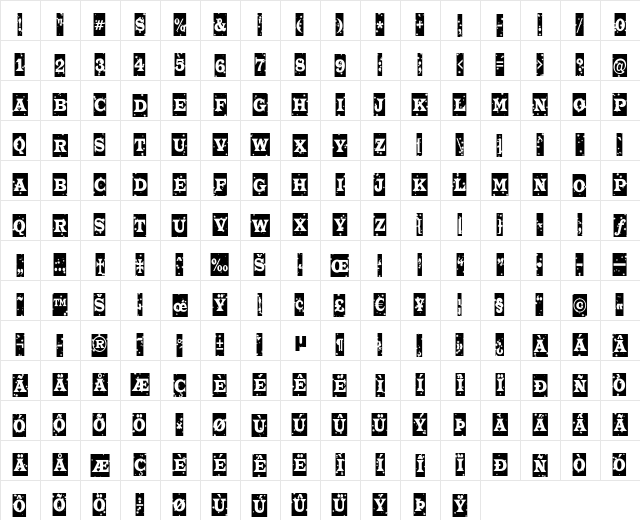
a_TrianglerCmStNt Regular
| Designer | W.Chufarofsky & M.Slutsker |
Design Context for a_TrianglerCmStNt Typeface
a_TrianglerCmStNt is a composed and adaptable typeface that performs quietly and consistently across a wide range of design contexts.